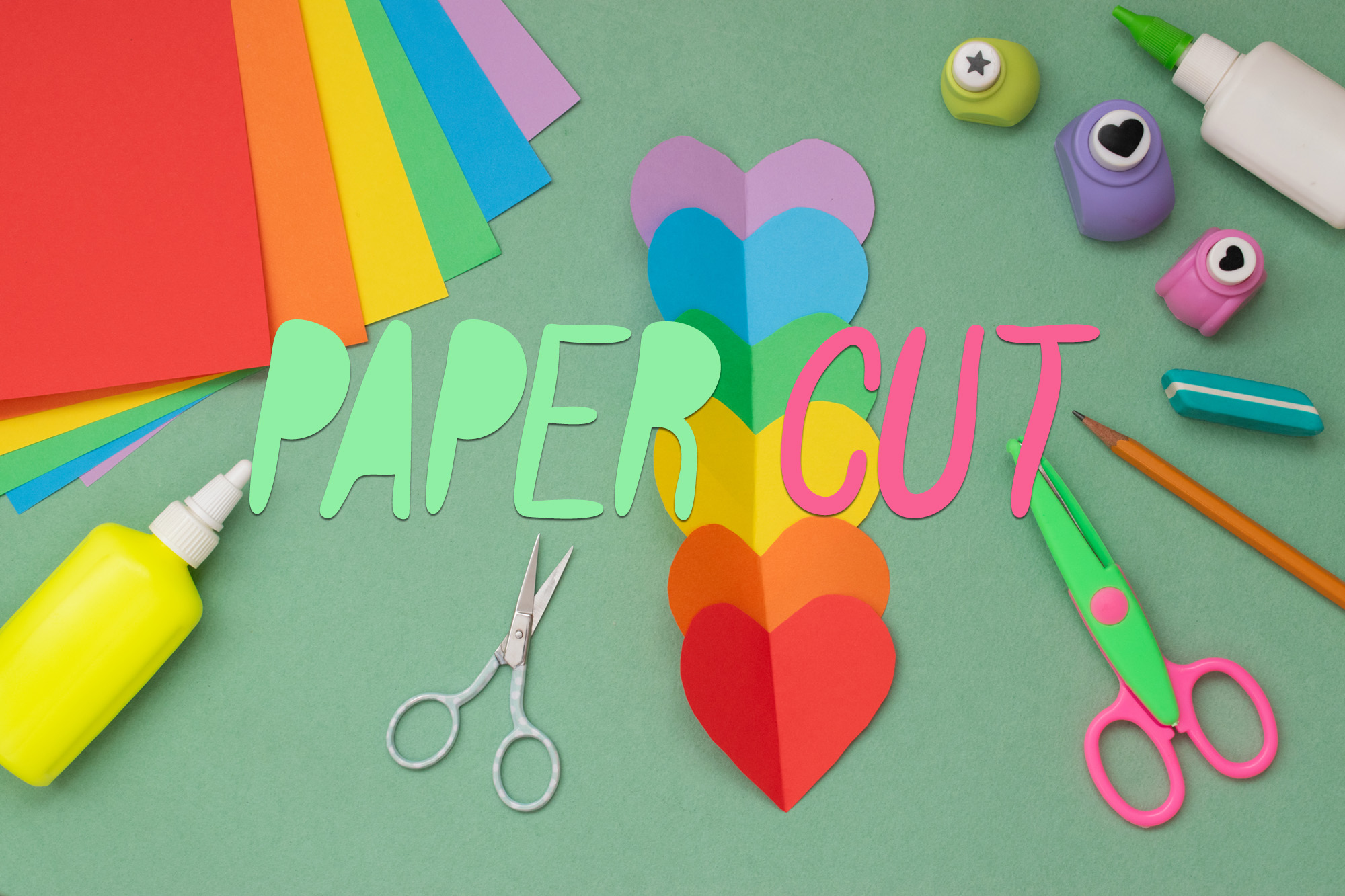
Paper Cut Font
Paper Cut Display Font
This is a cute, fun and joyful display font. This font is perfect for children themed designs, especially when combined with bright colors.